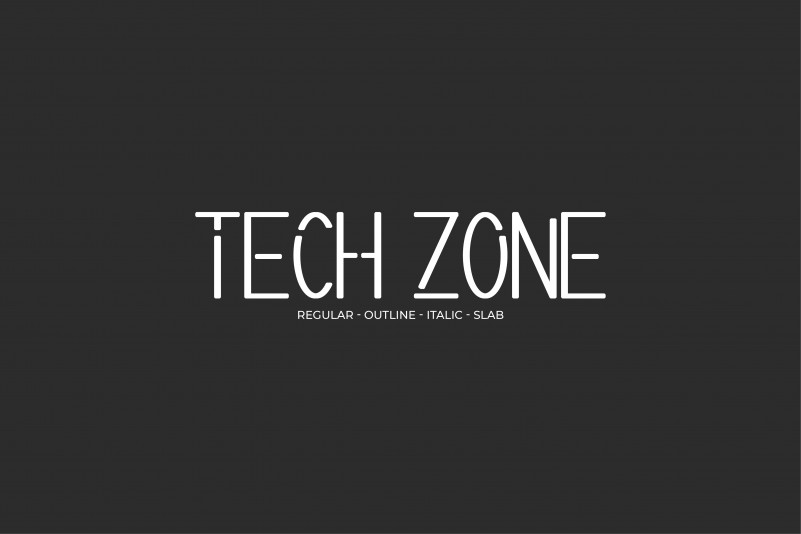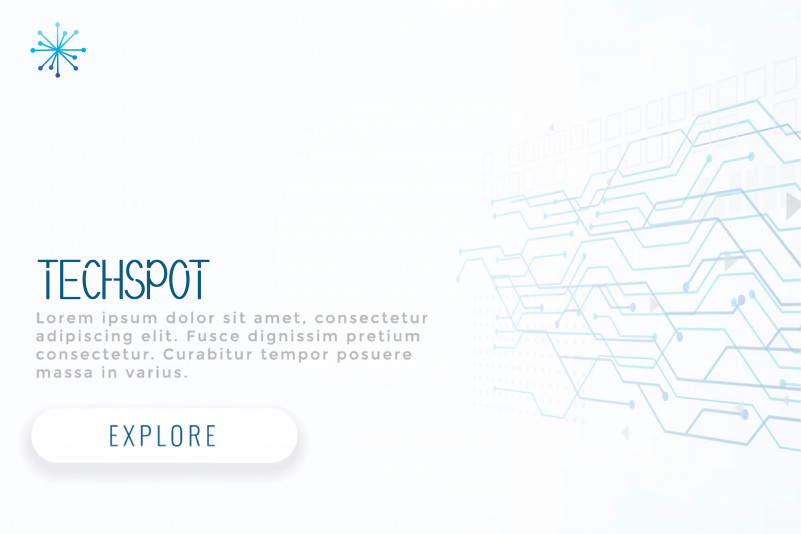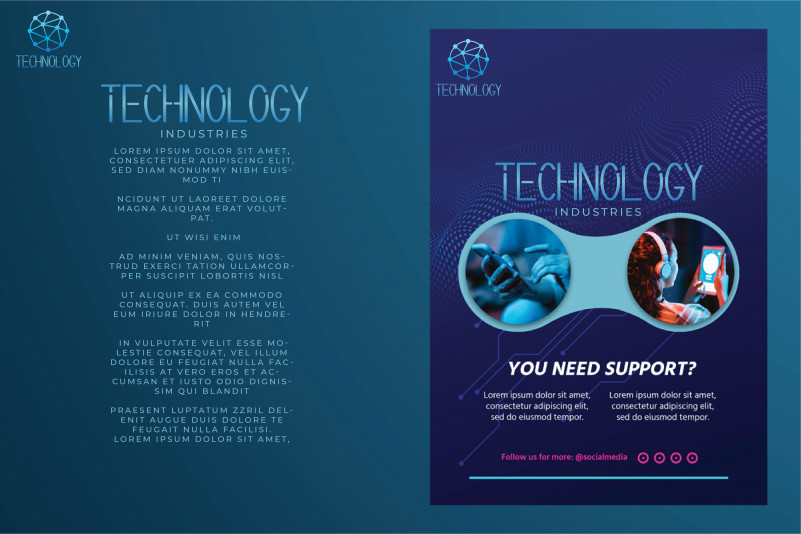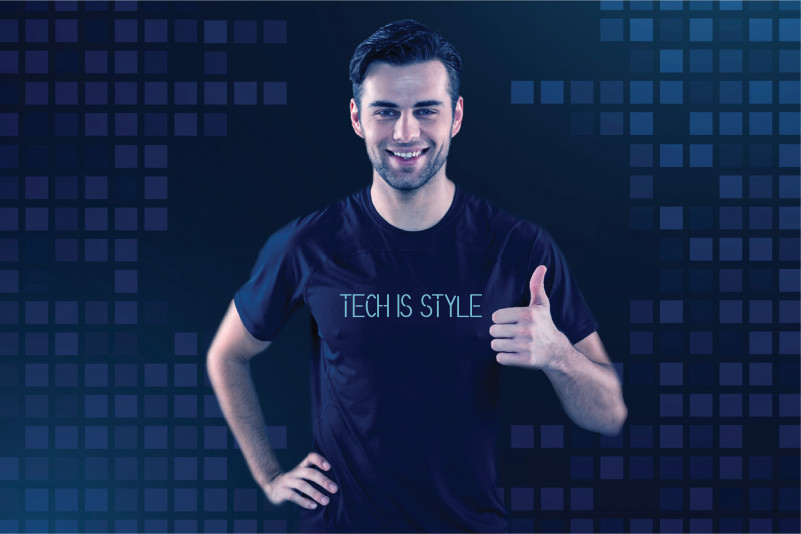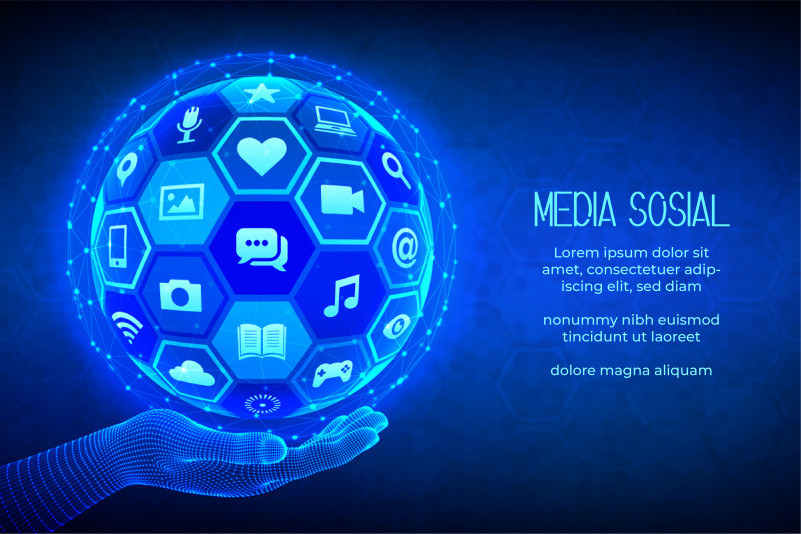
Tech Zone Font
Tech Zone Sans Serif Font
Is a modern sans serif font display with negative space on its shapes. This font has futuristic and techno style that looks stunning in just about every context. Use it for logos, print, collage, body text, and more!
Tech Zone Sans Serif Font includes full set of Uppercase and Lowercase Basic Characters, Numerals and Punctuation. Tech Zone will be great for Use it for any project that needs a unique, authentic look! Perfect for branding, labels, headline, posters, websites and so much more!